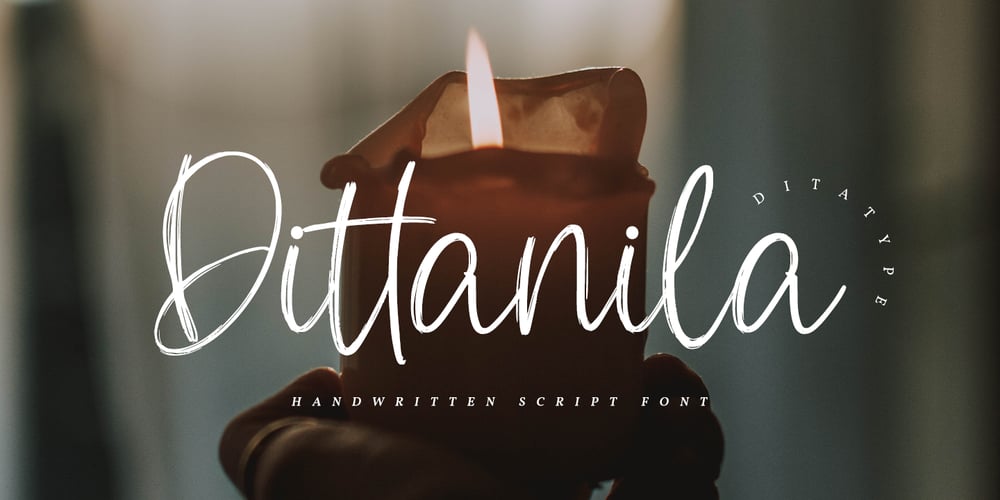
Dittanila Font Family was designed by Donis Miftahudin and published by Ditatype. Dittanila contains 1 styles and family package options. Dittanila is a beautiful handwritten font. The handwritten combined with brush font will make your design project modern and attractive. Made for any professional project branding. Dittanila is best used for branding logotype, and quotes.Features: Standart Ligatures Stylistic Set Multilingual Support PUA Encoded Numerals and Punctuation Thank you for downloading premium fonts from Dita Type